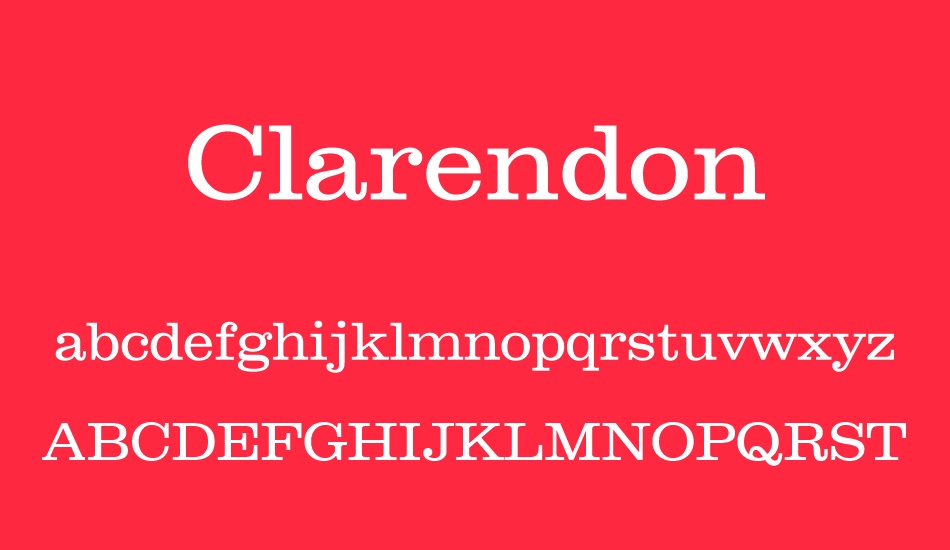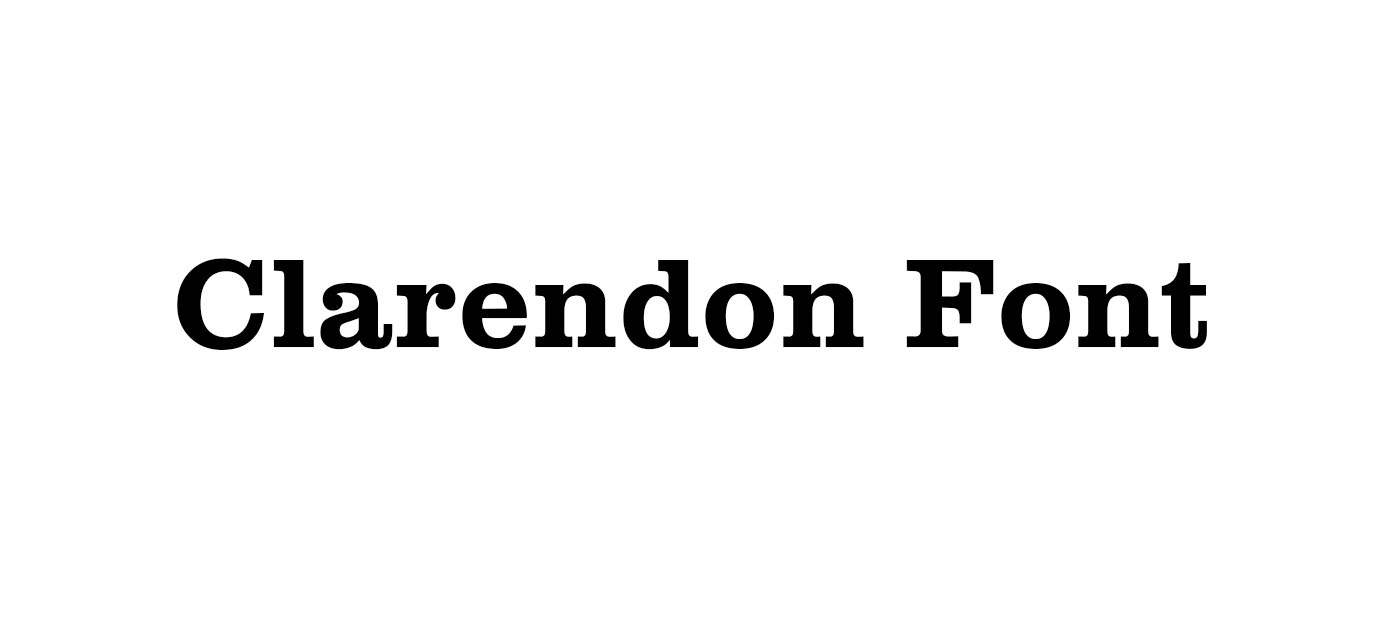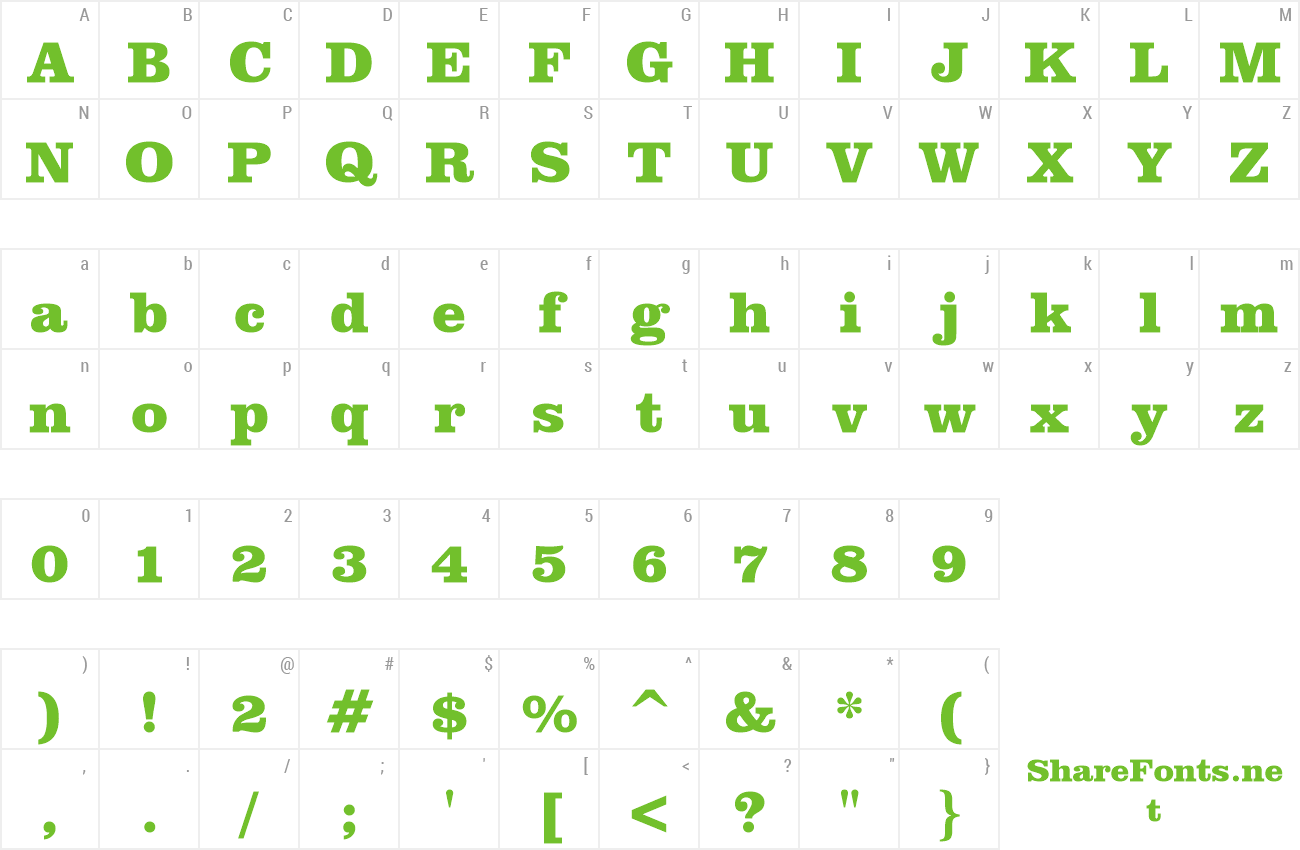
Clarendon Font Download - Clarendon text is a contemporary remake of the classic slab serif typeface with a clear and legible visibility. The font’s compatibility with software like adobe photoshop, indesign, and microsoft word ensures it can be seamlessly. Explore clarendon wide designed by patrick griffin at adobe fonts. You can use it for design, web, pdf,. A typeface with 5 styles, available from adobe fonts for sync and web use.
Explore clarendon wide designed by patrick griffin at adobe fonts. Clarendon text is a contemporary remake of the classic slab serif typeface with a clear and legible visibility. You can use it for design, web, pdf,. The font’s compatibility with software like adobe photoshop, indesign, and microsoft word ensures it can be seamlessly. A typeface with 5 styles, available from adobe fonts for sync and web use.
Clarendon text is a contemporary remake of the classic slab serif typeface with a clear and legible visibility. Explore clarendon wide designed by patrick griffin at adobe fonts. You can use it for design, web, pdf,. The font’s compatibility with software like adobe photoshop, indesign, and microsoft word ensures it can be seamlessly. A typeface with 5 styles, available from adobe fonts for sync and web use.
Clarendon text is a contemporary remake of the classic slab serif typeface with a clear and legible visibility. Explore clarendon wide designed by patrick griffin at adobe fonts. A typeface with 5 styles, available from adobe fonts for sync and web use. The font’s compatibility with software like adobe photoshop, indesign, and microsoft word ensures it can be seamlessly. You.
The font’s compatibility with software like adobe photoshop, indesign, and microsoft word ensures it can be seamlessly. You can use it for design, web, pdf,. A typeface with 5 styles, available from adobe fonts for sync and web use. Clarendon text is a contemporary remake of the classic slab serif typeface with a clear and legible visibility. Explore clarendon wide.
You can use it for design, web, pdf,. Clarendon text is a contemporary remake of the classic slab serif typeface with a clear and legible visibility. Explore clarendon wide designed by patrick griffin at adobe fonts. A typeface with 5 styles, available from adobe fonts for sync and web use. The font’s compatibility with software like adobe photoshop, indesign, and.
Explore clarendon wide designed by patrick griffin at adobe fonts. The font’s compatibility with software like adobe photoshop, indesign, and microsoft word ensures it can be seamlessly. A typeface with 5 styles, available from adobe fonts for sync and web use. You can use it for design, web, pdf,. Clarendon text is a contemporary remake of the classic slab serif.
A typeface with 5 styles, available from adobe fonts for sync and web use. The font’s compatibility with software like adobe photoshop, indesign, and microsoft word ensures it can be seamlessly. Explore clarendon wide designed by patrick griffin at adobe fonts. Clarendon text is a contemporary remake of the classic slab serif typeface with a clear and legible visibility. You.
You can use it for design, web, pdf,. A typeface with 5 styles, available from adobe fonts for sync and web use. Clarendon text is a contemporary remake of the classic slab serif typeface with a clear and legible visibility. Explore clarendon wide designed by patrick griffin at adobe fonts. The font’s compatibility with software like adobe photoshop, indesign, and.
Craw Clarendon Font Free Download
A typeface with 5 styles, available from adobe fonts for sync and web use. The font’s compatibility with software like adobe photoshop, indesign, and microsoft word ensures it can be seamlessly. Clarendon text is a contemporary remake of the classic slab serif typeface with a clear and legible visibility. You can use it for design, web, pdf,. Explore clarendon wide.
Clarendon Font Free Download
Explore clarendon wide designed by patrick griffin at adobe fonts. The font’s compatibility with software like adobe photoshop, indesign, and microsoft word ensures it can be seamlessly. You can use it for design, web, pdf,. A typeface with 5 styles, available from adobe fonts for sync and web use. Clarendon text is a contemporary remake of the classic slab serif.
Clarendon Font Free Download
Explore clarendon wide designed by patrick griffin at adobe fonts. A typeface with 5 styles, available from adobe fonts for sync and web use. You can use it for design, web, pdf,. Clarendon text is a contemporary remake of the classic slab serif typeface with a clear and legible visibility. The font’s compatibility with software like adobe photoshop, indesign, and.
Download Free Font Clarendon
Clarendon text is a contemporary remake of the classic slab serif typeface with a clear and legible visibility. Explore clarendon wide designed by patrick griffin at adobe fonts. You can use it for design, web, pdf,. The font’s compatibility with software like adobe photoshop, indesign, and microsoft word ensures it can be seamlessly. A typeface with 5 styles, available from.
Clarendon Text Is A Contemporary Remake Of The Classic Slab Serif Typeface With A Clear And Legible Visibility.
Explore clarendon wide designed by patrick griffin at adobe fonts. You can use it for design, web, pdf,. The font’s compatibility with software like adobe photoshop, indesign, and microsoft word ensures it can be seamlessly. A typeface with 5 styles, available from adobe fonts for sync and web use.